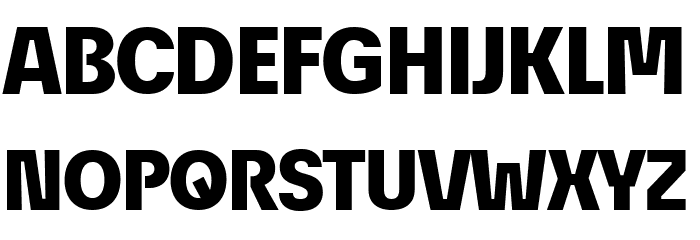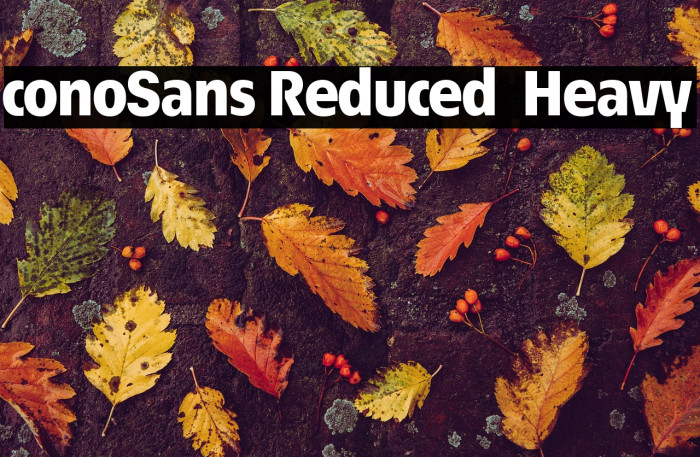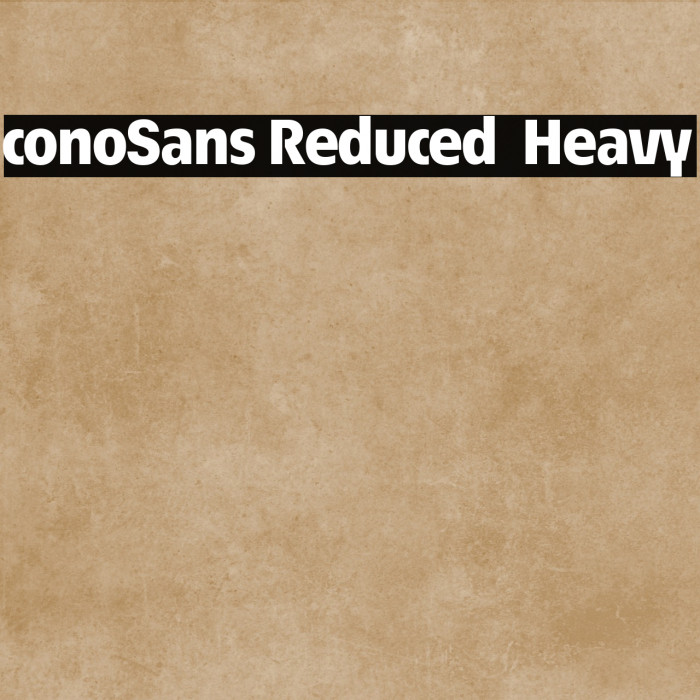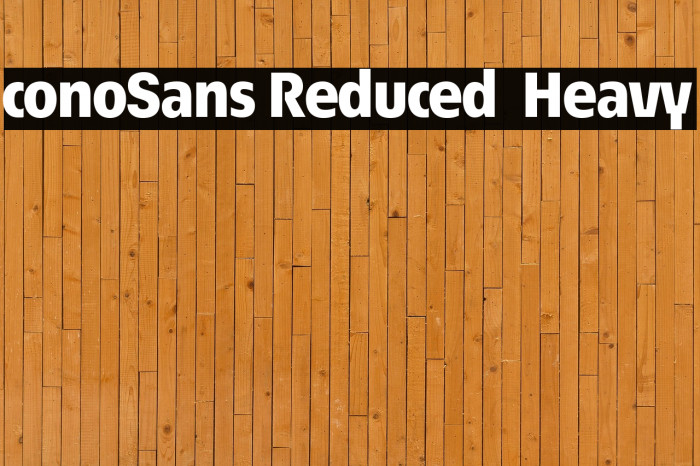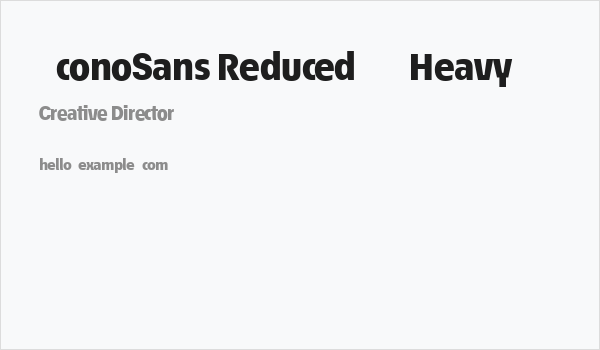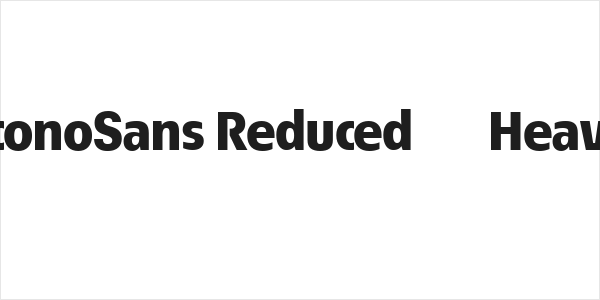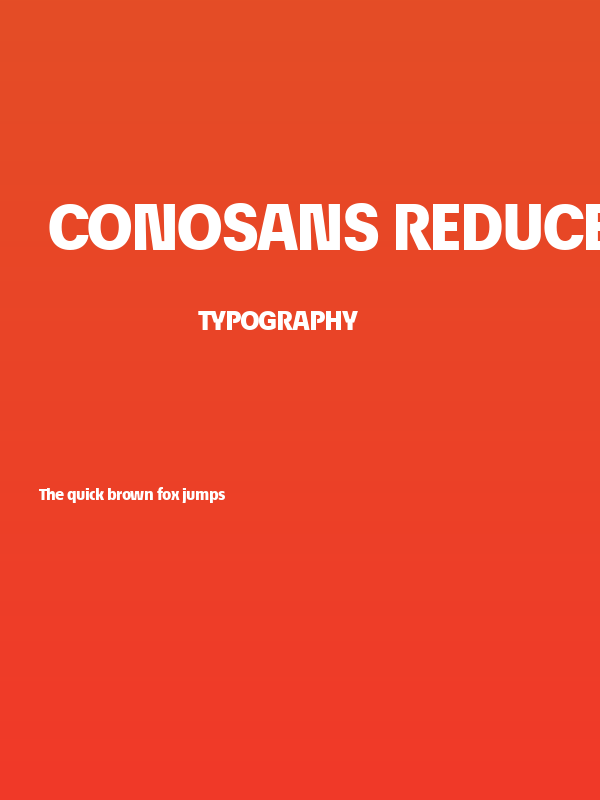
ÉconoSans Reduced 85 Heavy Font
ÉconoSans Reduced 85 Heavy Description
This typeface exhibits a bold and assertive presence with its heavy weight and strong geometric forms. The characters are crafted with a modern sensibility, featuring clean lines and a uniform stroke width that conveys a sense of stability and confidence. The uppercase letters are particularly striking, with a robust and compact design that enhances readability. The lowercase letters maintain a harmonious balance with the uppercase, offering a smooth and cohesive appearance. The font's overall aesthetic is contemporary, making it suitable for a wide range of applications where clarity and impact are essential.
| Proposed Projects | Ideal for branding, advertising, headlines, and any project requiring a strong visual impact. |